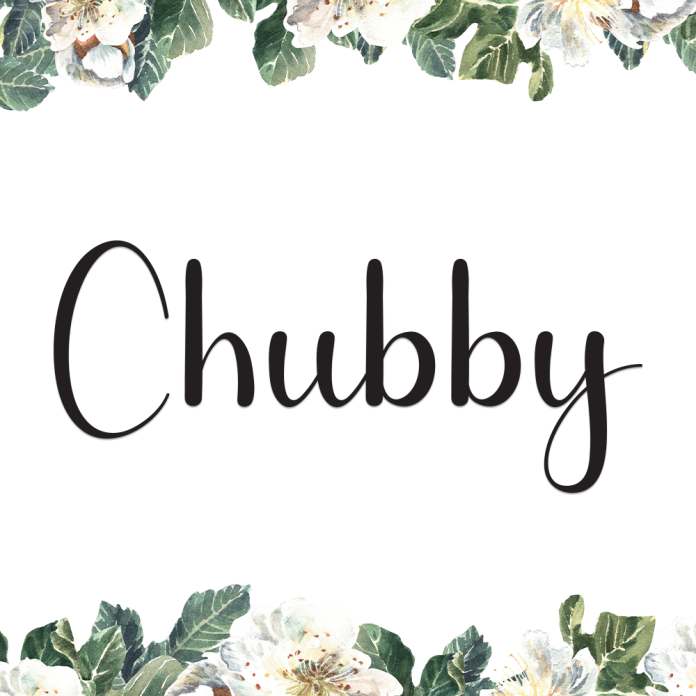
Chubby is a playful handwritten font with rounded strokes and a cheerful, casual vibe. Its bold yet soft appearance makes it perfect for fun-loving, kid-friendly, or heartfelt design themes.
Whether you're working on greeting cards, branding for children’s products, or Instagram quotes, Chubby brings an extra dose of friendliness and warmth.
Handwritten style with a chubby, rounded look
Fun and approachable letter shapes
Ideal for kids’ content, social media, and crafty designs